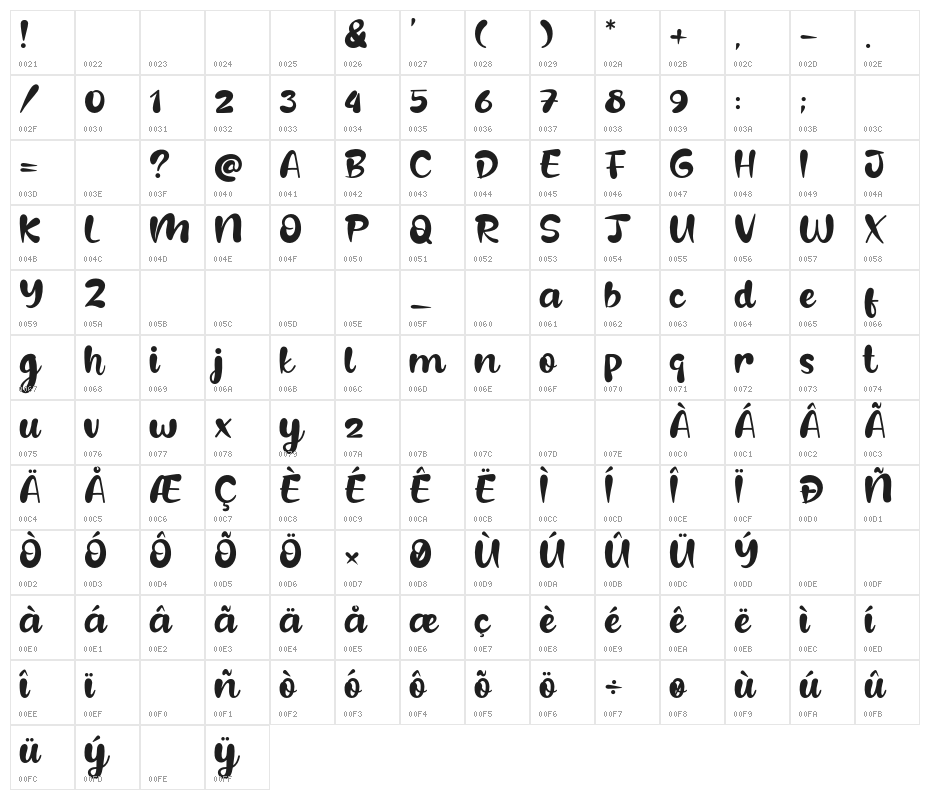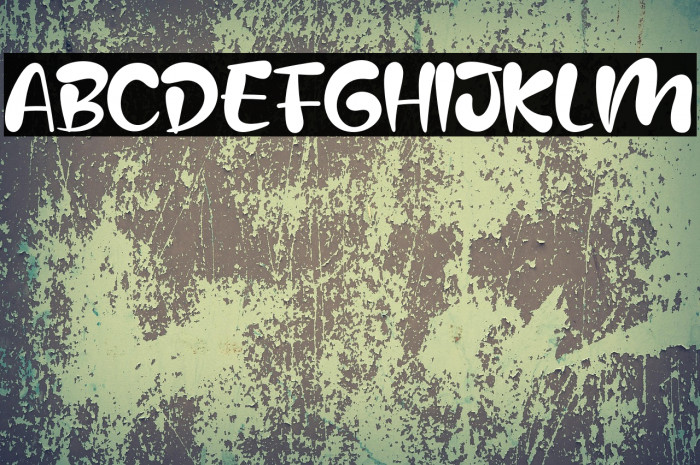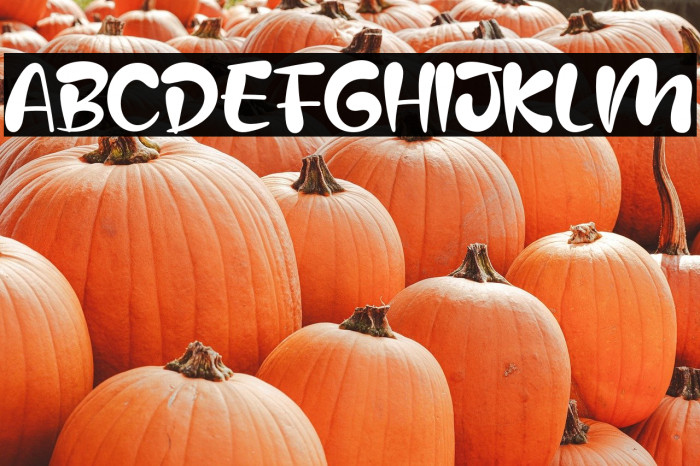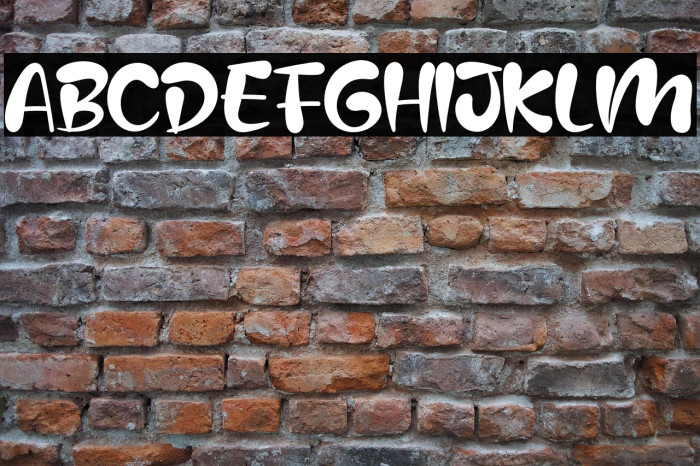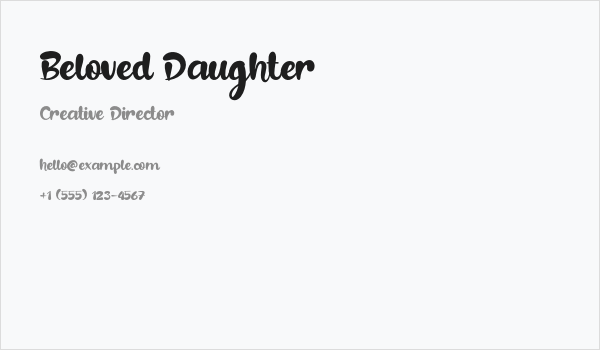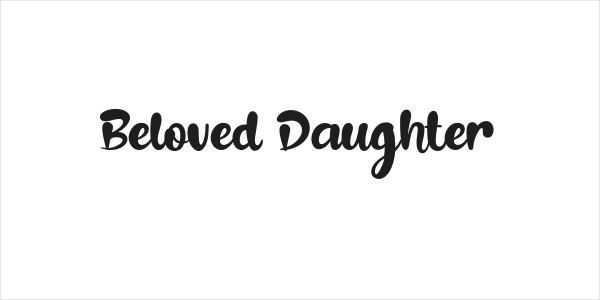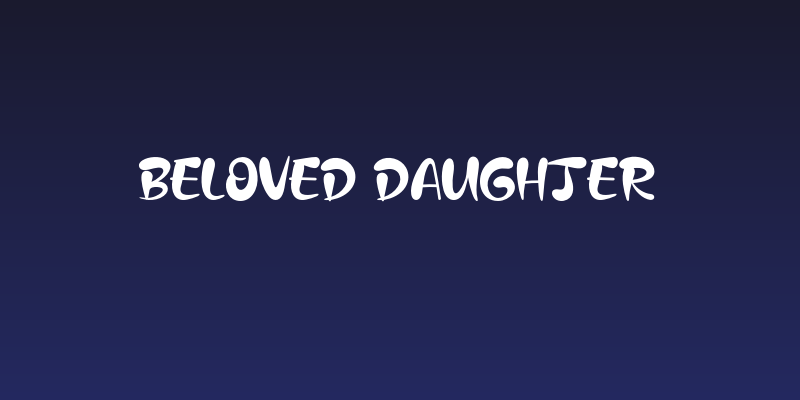
Beloved Daughter Font
Beloved Daughter Description
This font features a playful and bold script style, characterized by its flowing, connected letters and a lively, energetic appearance. The uppercase letters are slightly more structured, while the lowercase letters exhibit a more fluid and cursive form. The numbers and special characters maintain the same bold and dynamic style, ensuring consistency throughout. The strokes are thick, with a medium contrast that adds to the font's readability and charm. This font is ideal for projects that require a personal and friendly touch, such as invitations, greeting cards, or branding for creative businesses.
| Proposed Projects | Ideal for invitations, greeting cards, branding for creative businesses, and playful designs. |